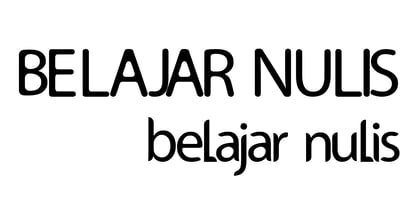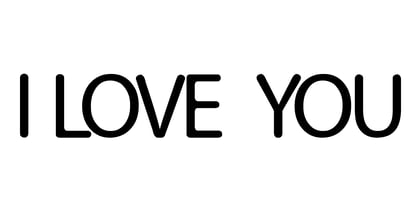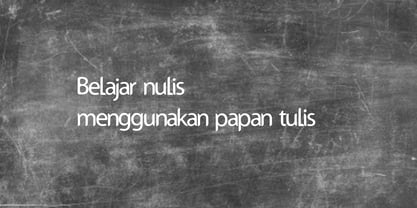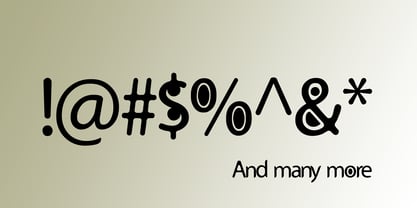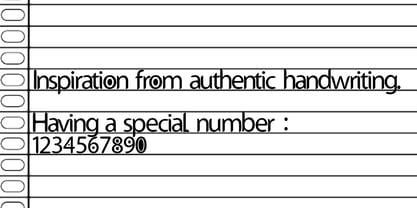
Belajar Nulis
par Randy Studio
La famille de polices Belajar Nulis a été conçue par Randy Prince et publiée par Randy Studio. Belajar Nulis contient 1 styles. En savoir plus sur cette famille
The "Belajar Nulis" font features a style that blends handwriting and chalk-writing aesthetics, incorporating creative touches. It is easy to read and supports a wide range of characters..
Proper usage can bring this font to life and add vibrancy; it is also suitable for use on Android and other platforms thanks to its extensive character support.
Concepteurs: Randy Prince
Fonderie: Randy Studio